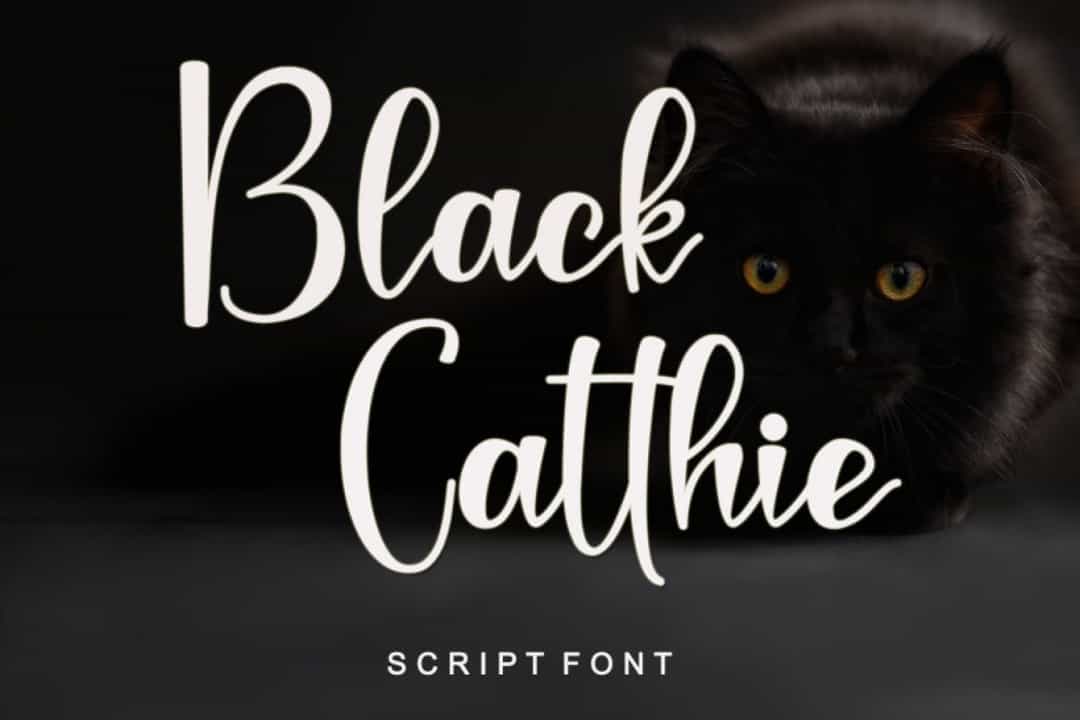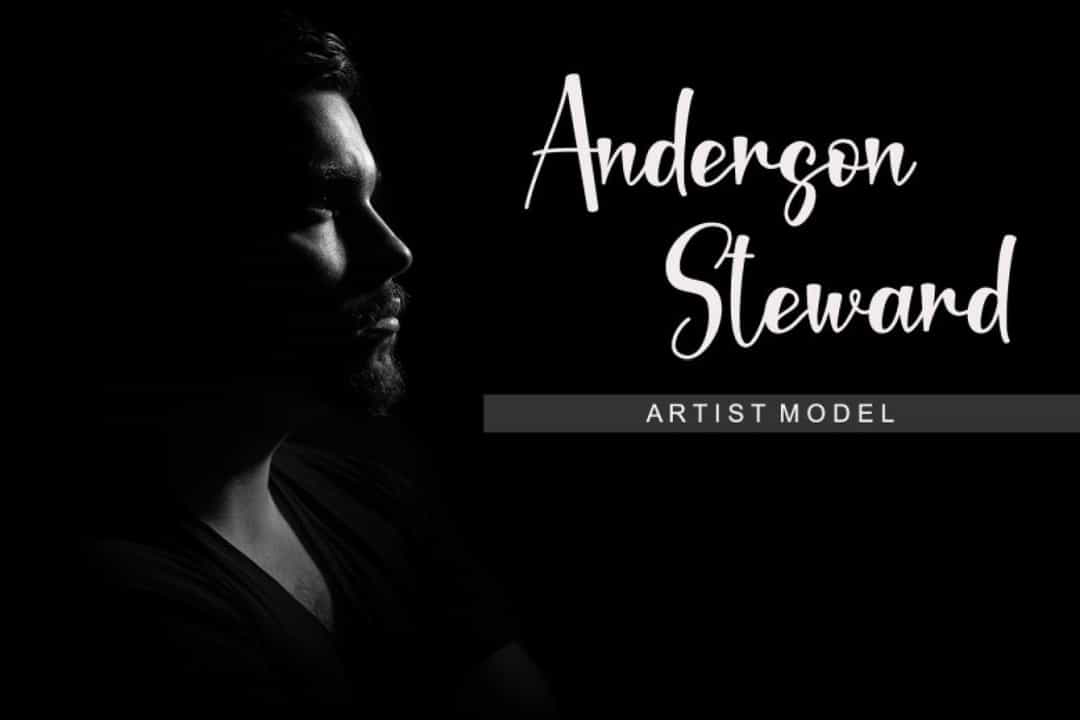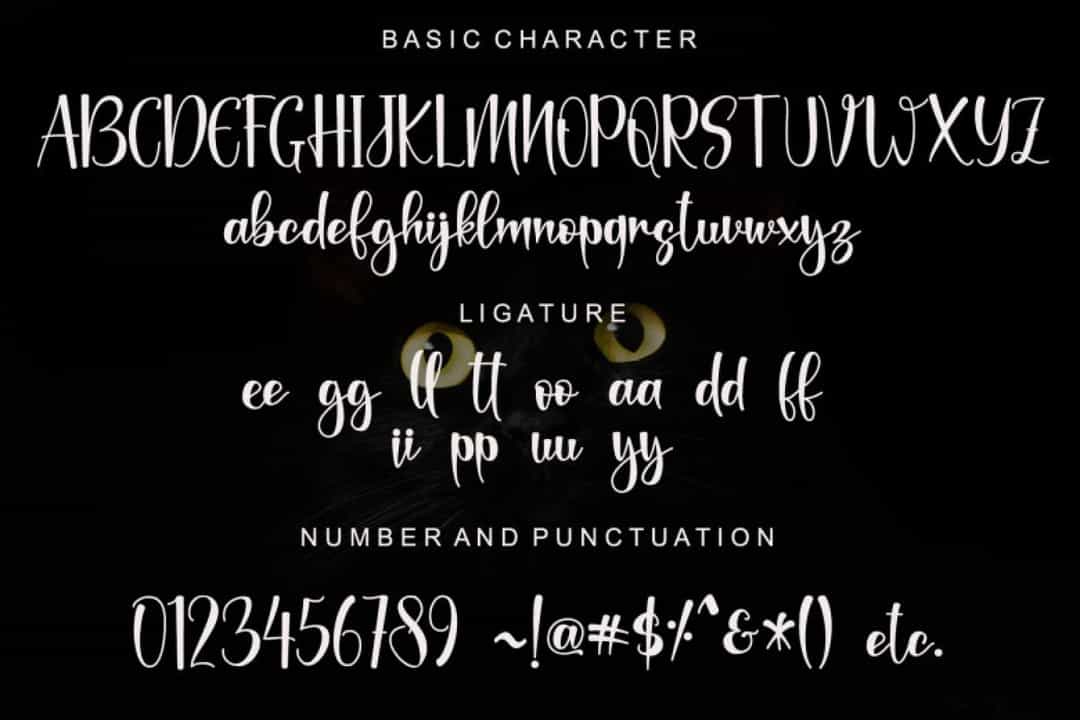
Black Catthie Font is a handwritten script font developed by Letterafa Studio that features flowing letters that create an original and charming aesthetic for any design project. Ideal for greeting cards, logos and packaging designs as well as craft or DIY projects like wedding invitations, book title packaging designs or any DIY projects, Black Catthie can give your designs an artistic appeal that no other font can.